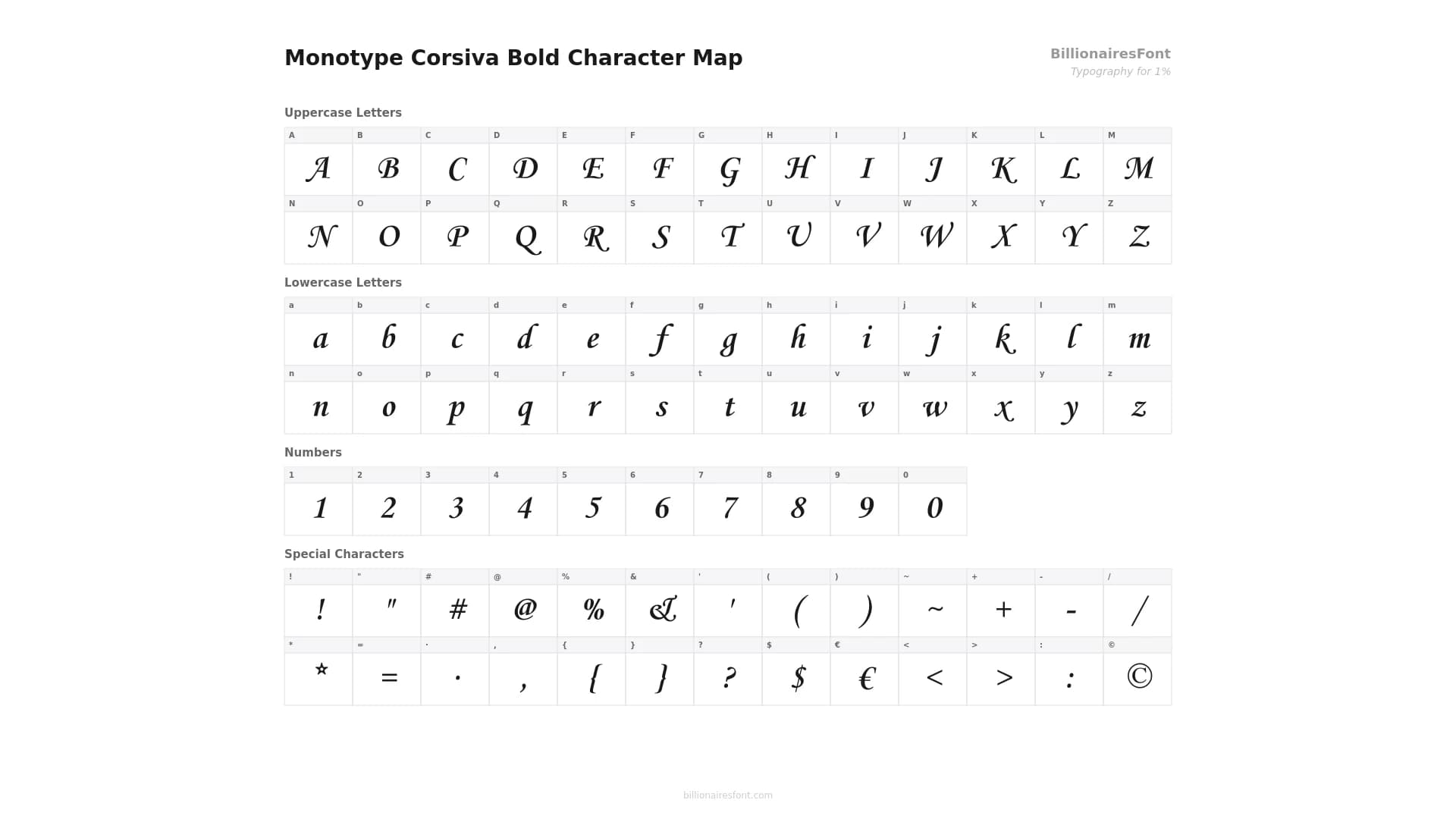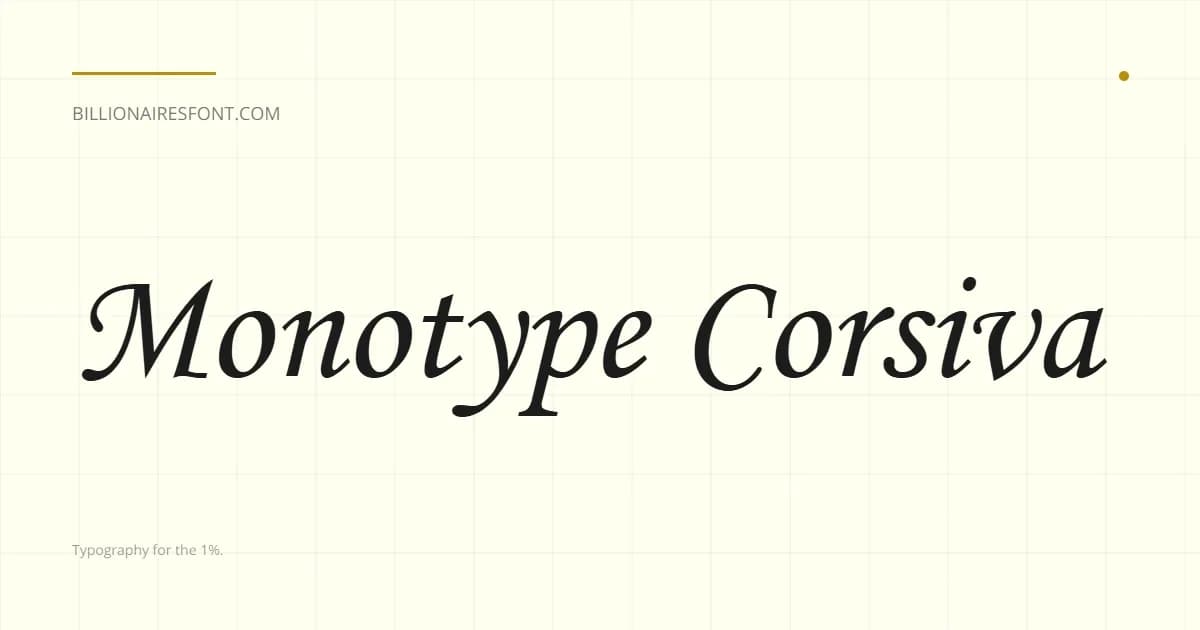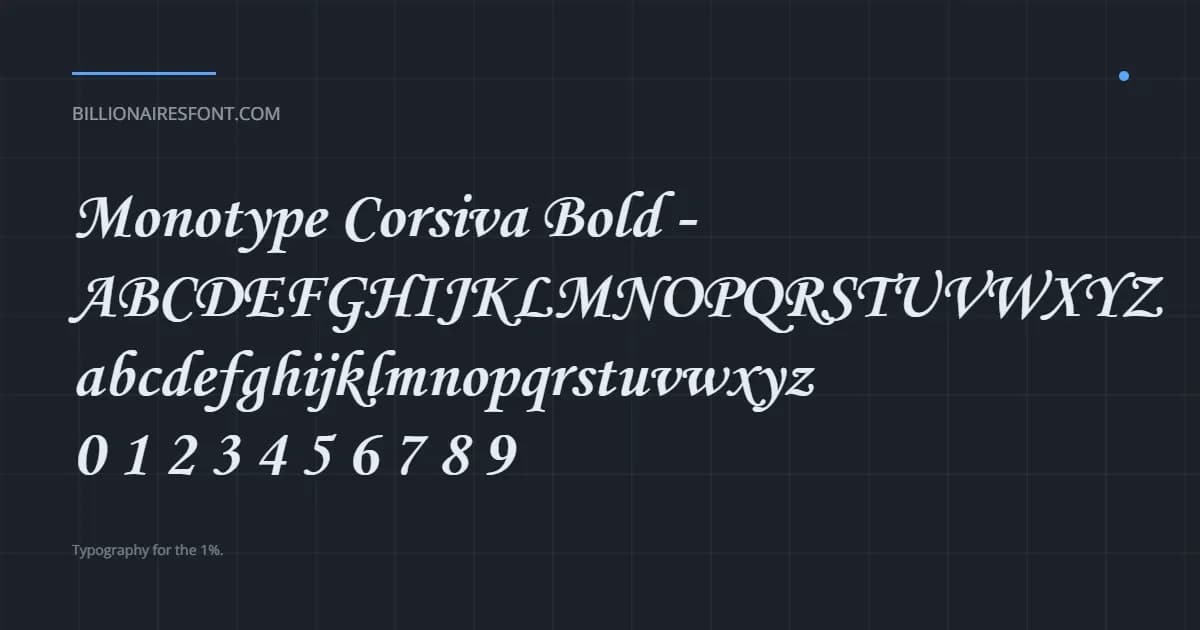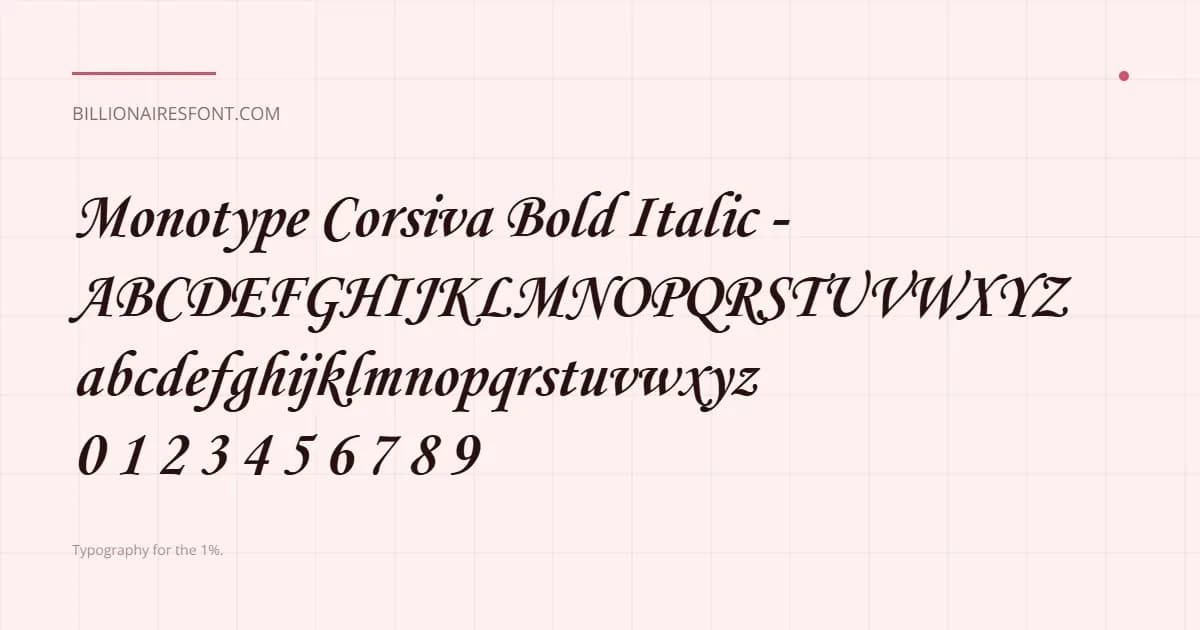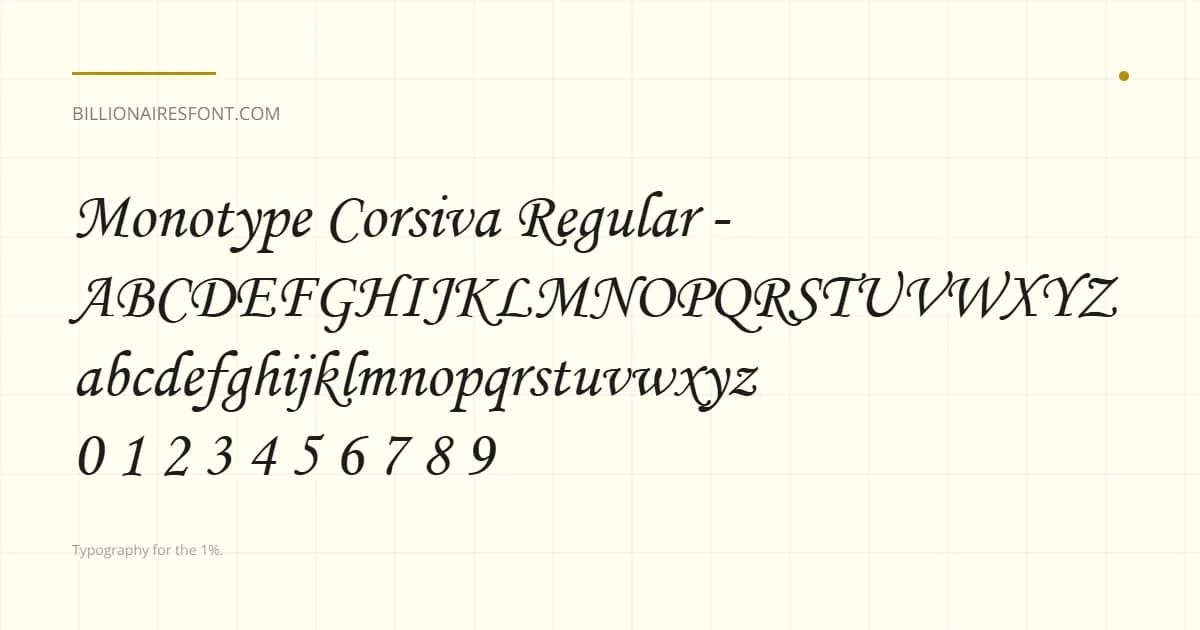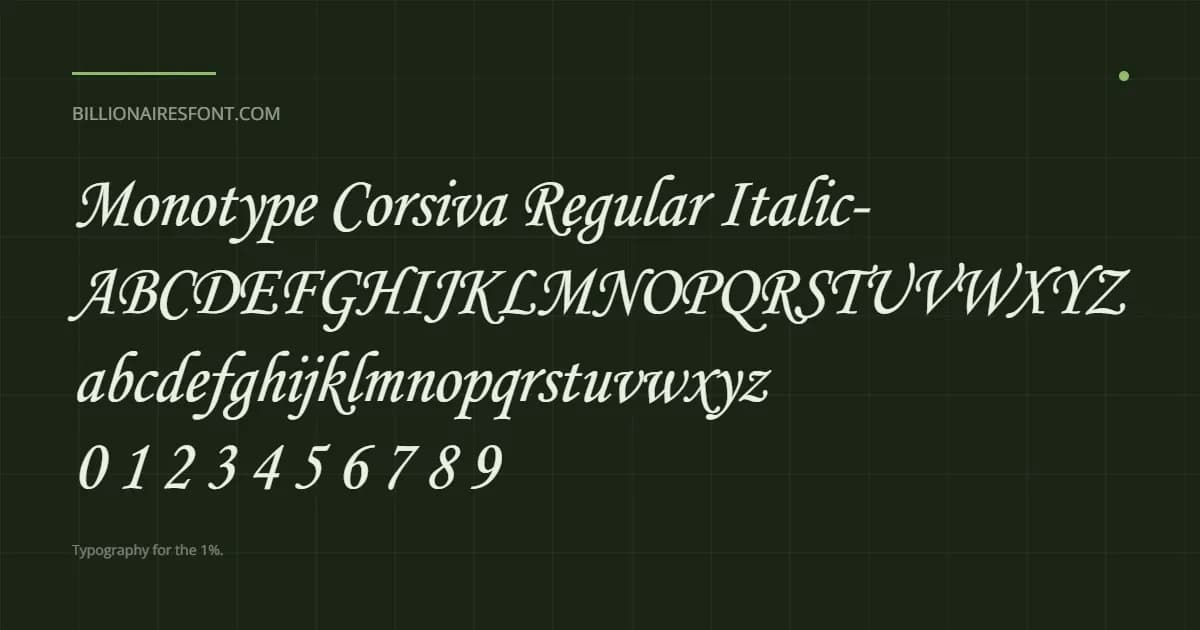
Monotype Corsiva is a calligraphic chancery cursive modelled on the cancellaresca hand that Ludovico degli Arrighi codified for the Papal Chancery in sixteenth-century Rome. Patricia Saunders drew it at the Monotype Type Drawing Office between 1991 and 1995, keeping the broad-nib pen logic visible in the stroke contrast while designing the swash capitals as initial letters rather than running uppercase. The font tilts at 14.1 degrees off vertical, ships as a single weight (Regular, 400), and packs 669 glyphs covering Latin, Greek, and Cyrillic scripts. That three-script range makes it one of the few chancery faces that handles formal print in Russian, Greek, and Bulgarian without a fallback swap. It is metrics-compatible with ITC Zapf Chancery, so the two substitute one-for-one in any document layout without reflowing text. Monotype Corsiva shipped with Microsoft Office from 1997 onward, and is available here as a free download for personal use in TTF, WOFF, and WOFF2 formats. It pairs well with a quiet serif like Garamond or Caslon for body text, or a neutral sans-serif like Open Sans for contrast without tonal conflict. Convert between formats with the Font Converter .
DesignerPatricia Saunders
ManufacturerMonotype Typography, Inc.